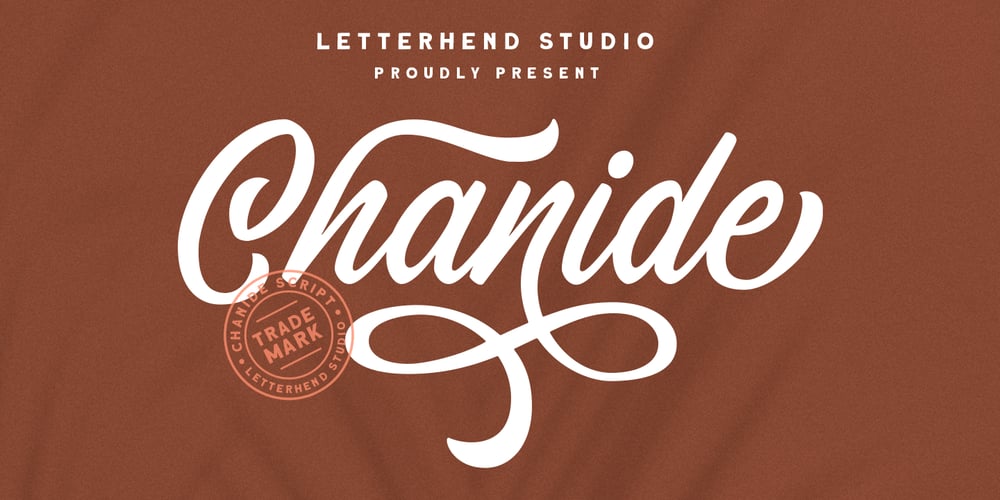
Chanide Script Font Family was designed by Hendry Juanda and published by Letterhend. Chanide Script contains 1 styles and family package options. Please welcome our newest script typeface: Chanide. As you can see at the previews, this typeface has unique swashes that allows you to create beautiful lettering in a snap! It has many stylistic set alternates that you can choose from.This font is works well for various formal forms such as invitations, labels, logos, magazines, books, greeting / wedding cards, packaging, fashion, make up, stationery, novels, labels or any type of advertising purpose.Features: Uppercase & Lowercase Numbers and Punctuation Multi-lingual Support Ligatures Alternates Swashes PUA encoded We highly recommend using a program that supports OpenType features and Glyphs panels like many of Adobe apps and Corel Draw, so you can see and access all Glyph variations.Email us to letterhend@gmail.com if you need something! Happy Designing!